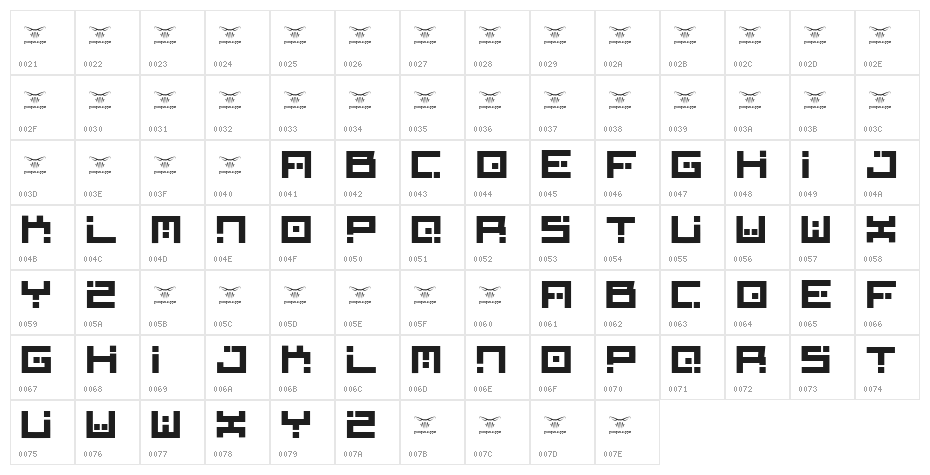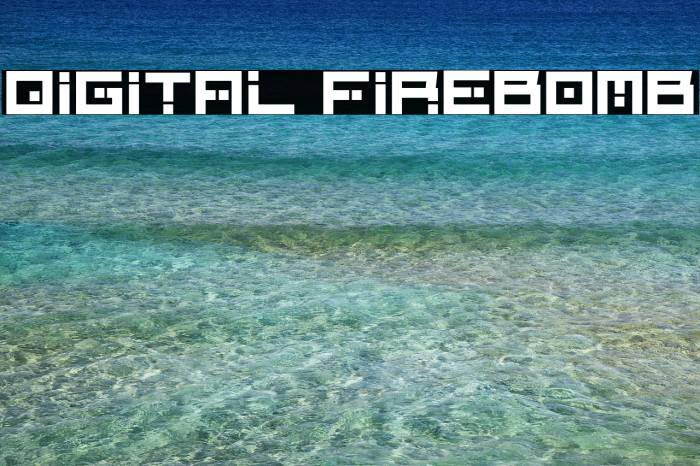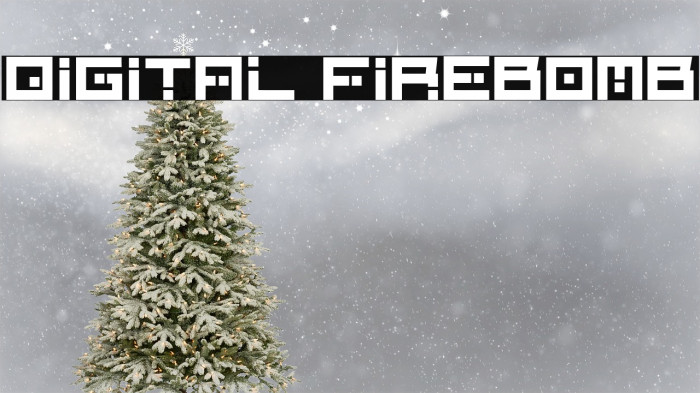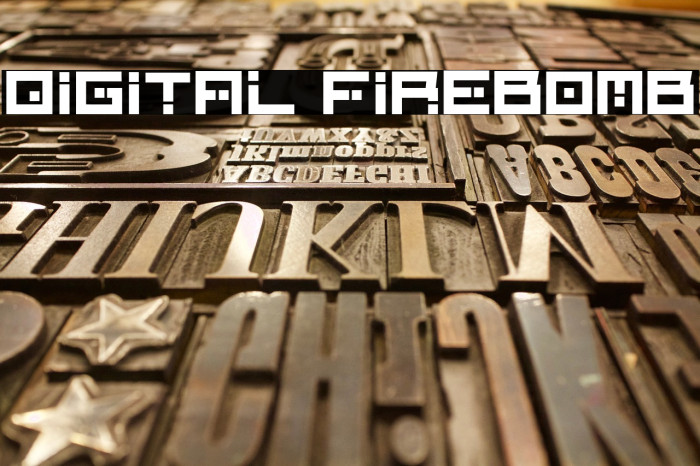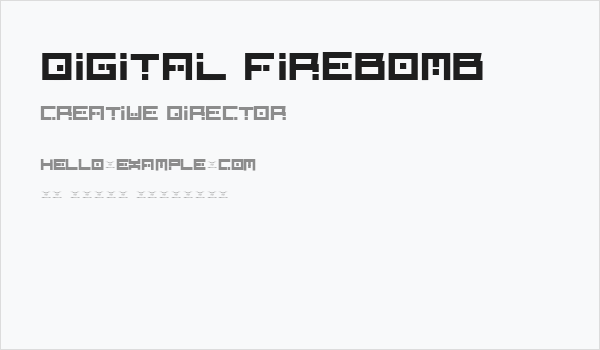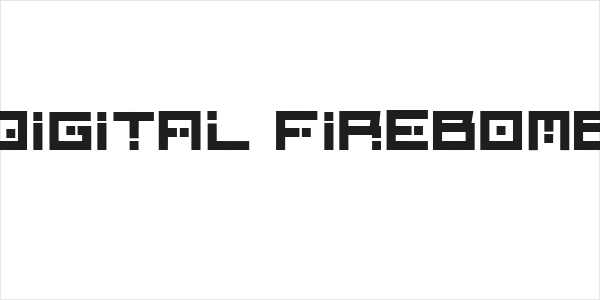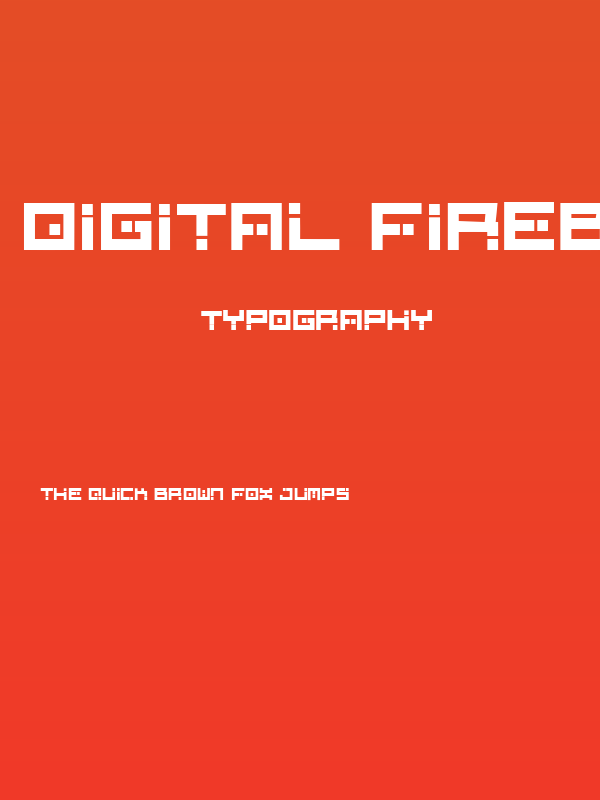
Digital Firebomb Font
Digital Firebomb Description
This font features a bold, geometric design with a futuristic and digital aesthetic. The characters are constructed with sharp angles and straight lines, creating a blocky and pixelated appearance. The uppercase letters are uniform in height, with consistent stroke thickness throughout. The design incorporates unique elements, such as square dots and angular cuts, adding a distinctive and modern touch. The font is highly legible and impactful, making it suitable for attention-grabbing headlines or digital-themed projects.
Proposed ProjectsIdeal for digital art, tech branding, video game titles, and sci-fi themed posters.